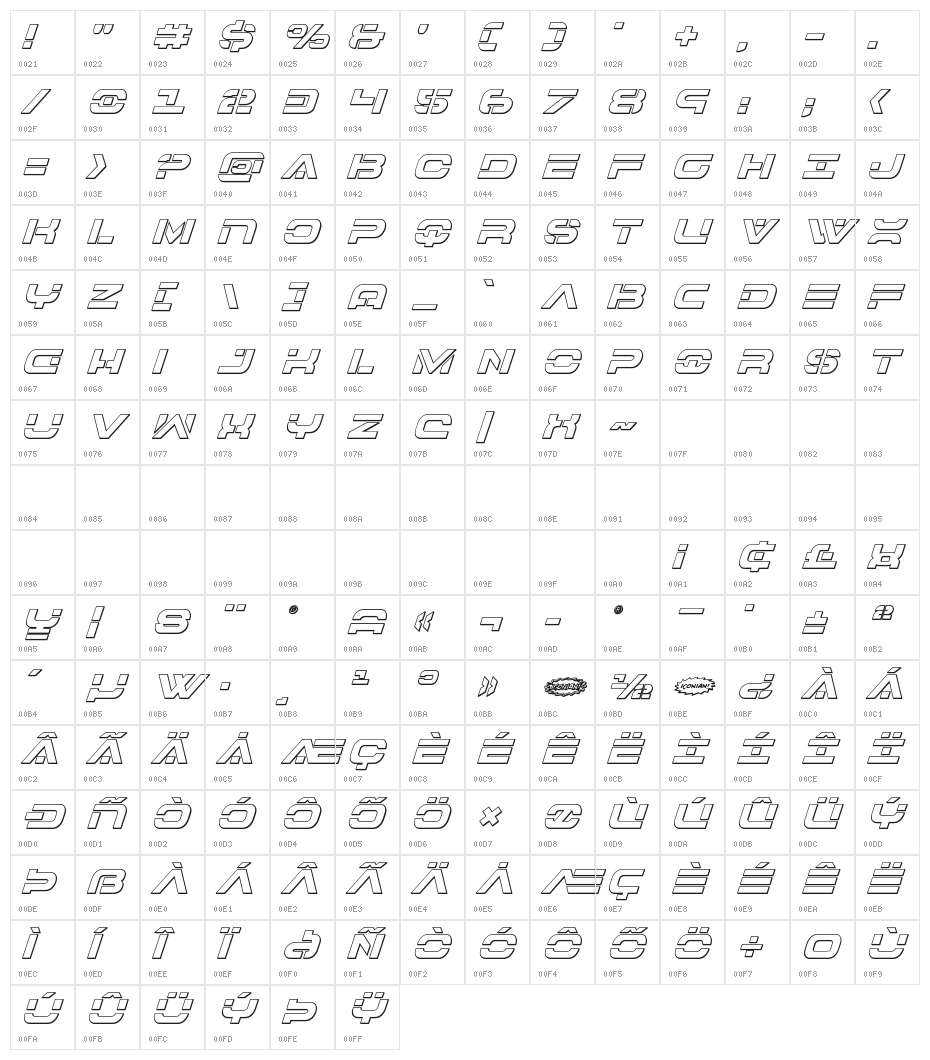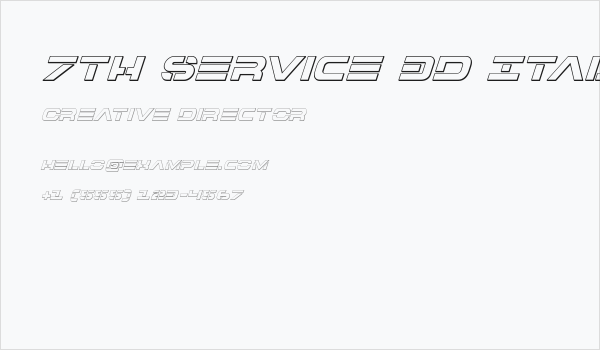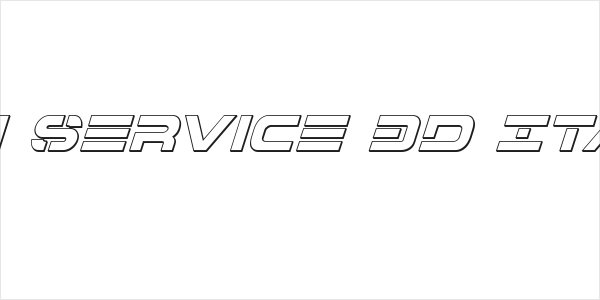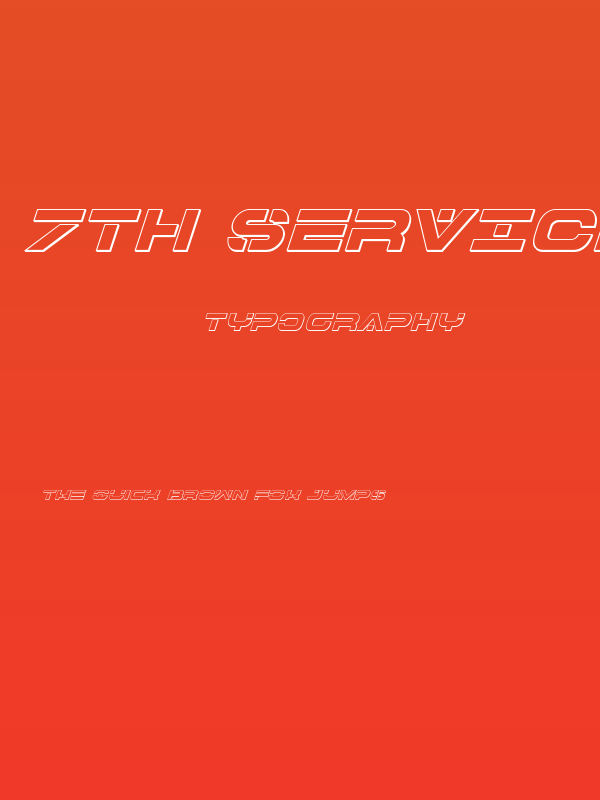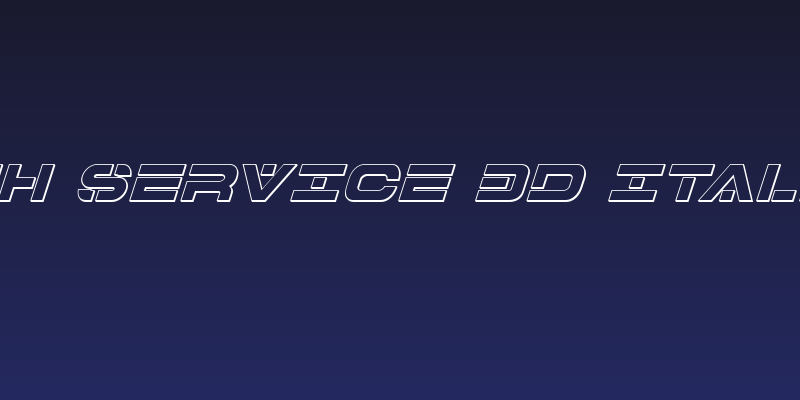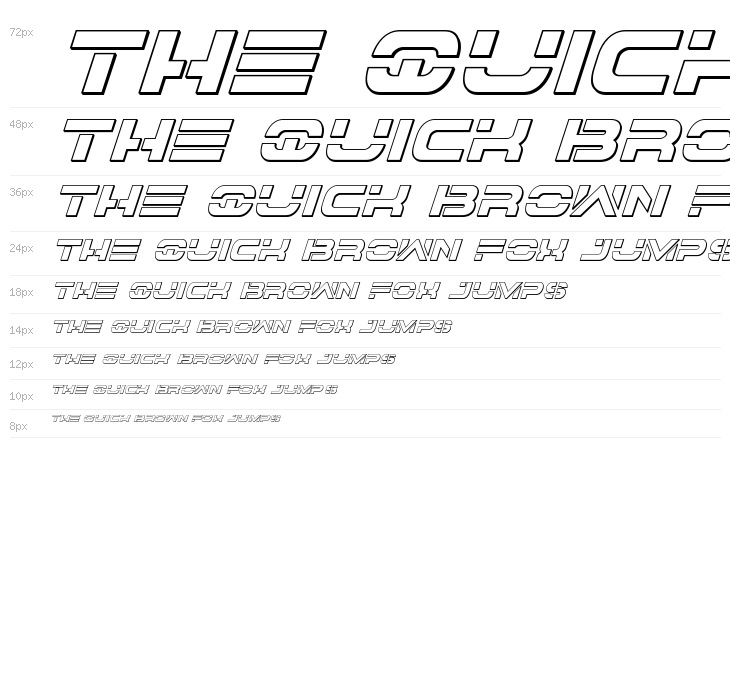
7th Service 3D Italic Font
7th Service 3D Italic Description
This font features a dynamic and futuristic design with a 3D italic style. The characters are outlined, giving them a hollow appearance that enhances their modern and sleek look. The angular and geometric shapes of the letters contribute to a sense of movement and speed, making it ideal for projects that require a contemporary and energetic feel. The uppercase and lowercase letters maintain a consistent style, while the numerals and special characters are designed to match the overall aesthetic. This font is perfect for creating eye-catching headlines, logos, and branding materials that stand out with a bold and innovative touch.